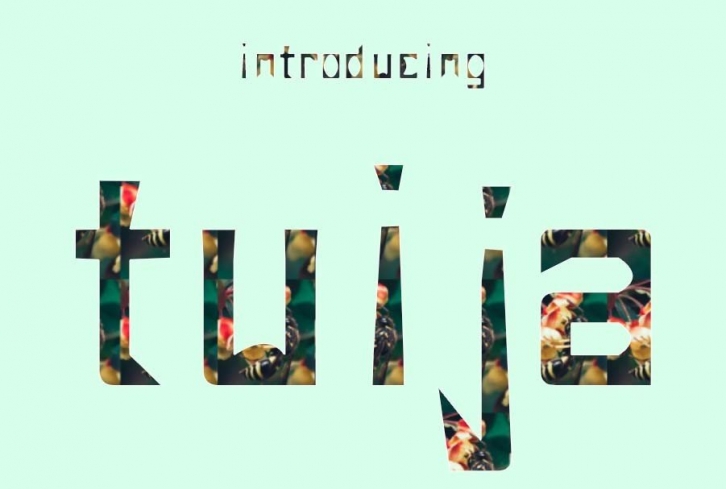
This font is ideal for branding and will decorate any of your projects. You can also use them to create a logo or use them for small businesses, t-shirts, book covers, stationery, marketing, blogs, magazines, and more.